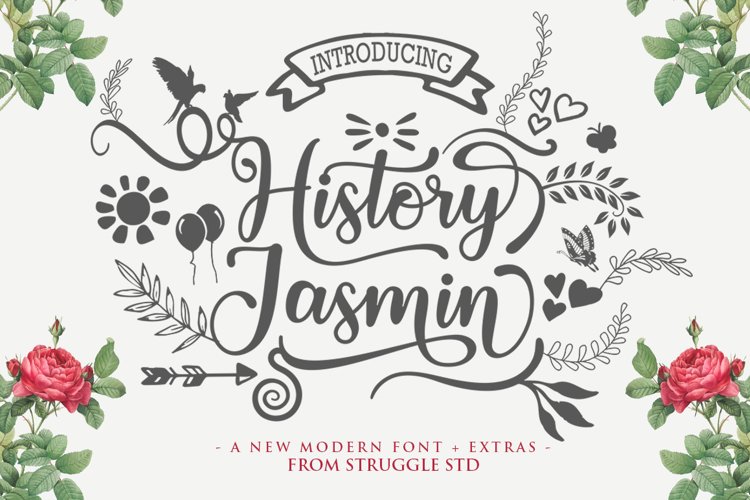
History Jasmin - New Update
History Jasmin is a delicate, elegant and flowing handwritten font. It has beautiful and well balanced characters and as a result, it matches a wide pool of designs. History Jasmin features a varying baseline, smooth lines, gorgeous glyphs and stunning alternates. Add it to your most creative ideas and notice how it makes them come alive!
Slant + Bold Style.